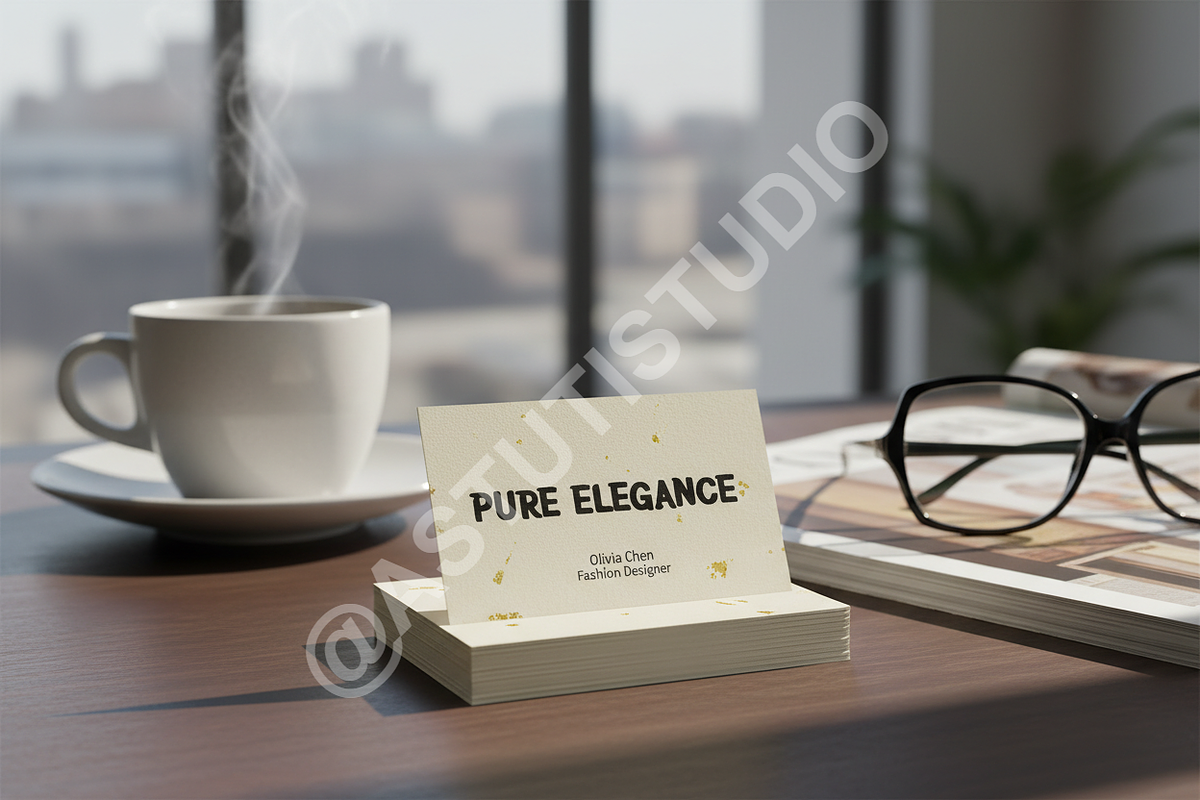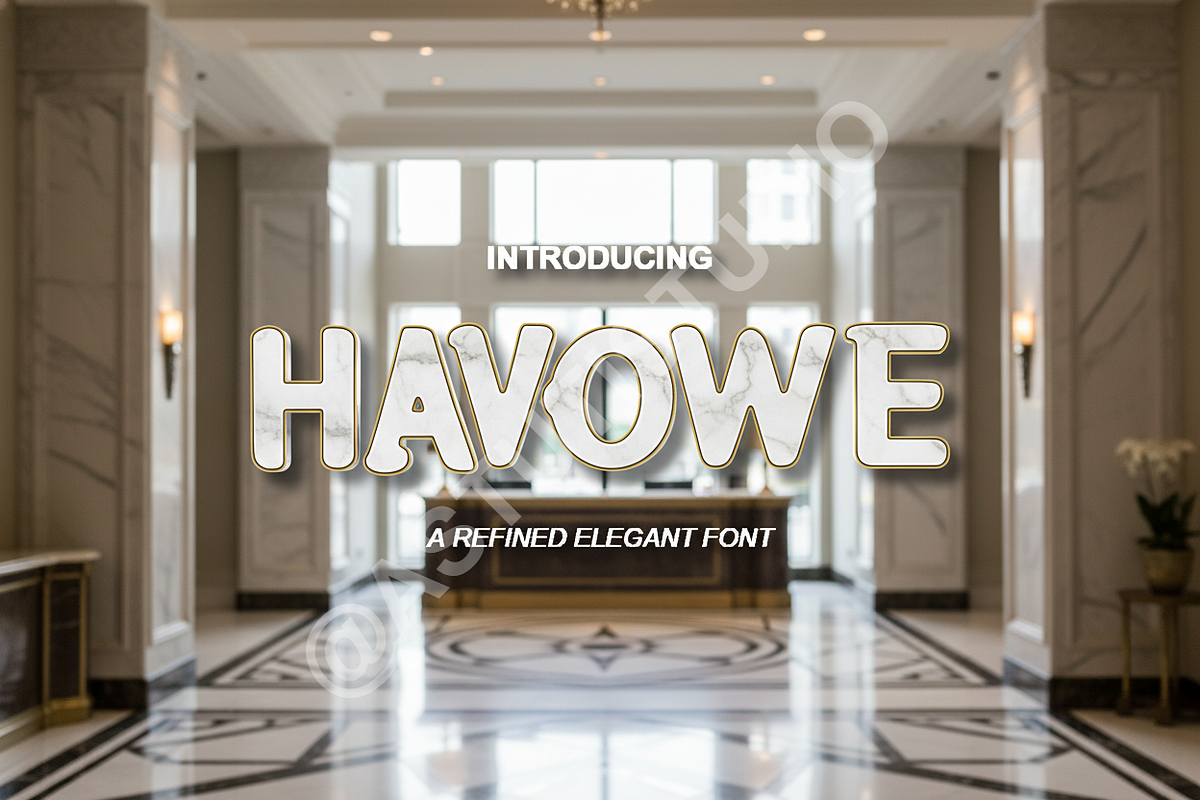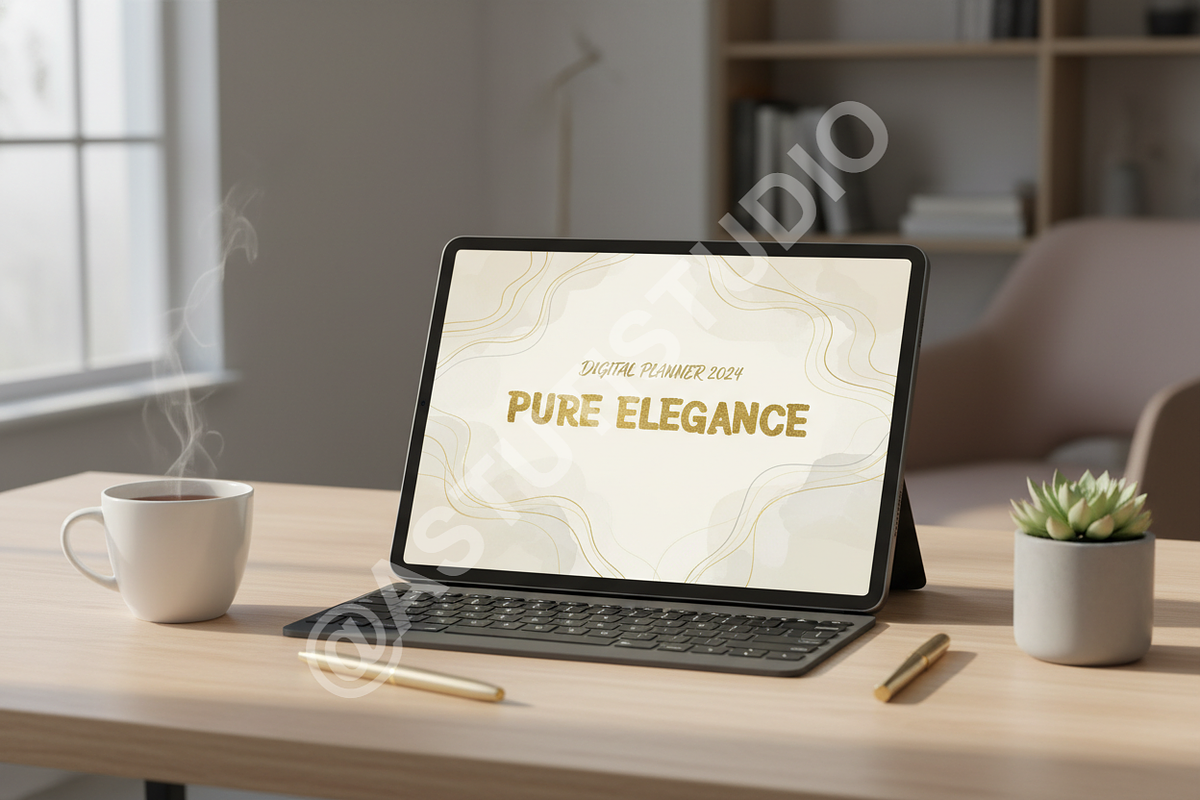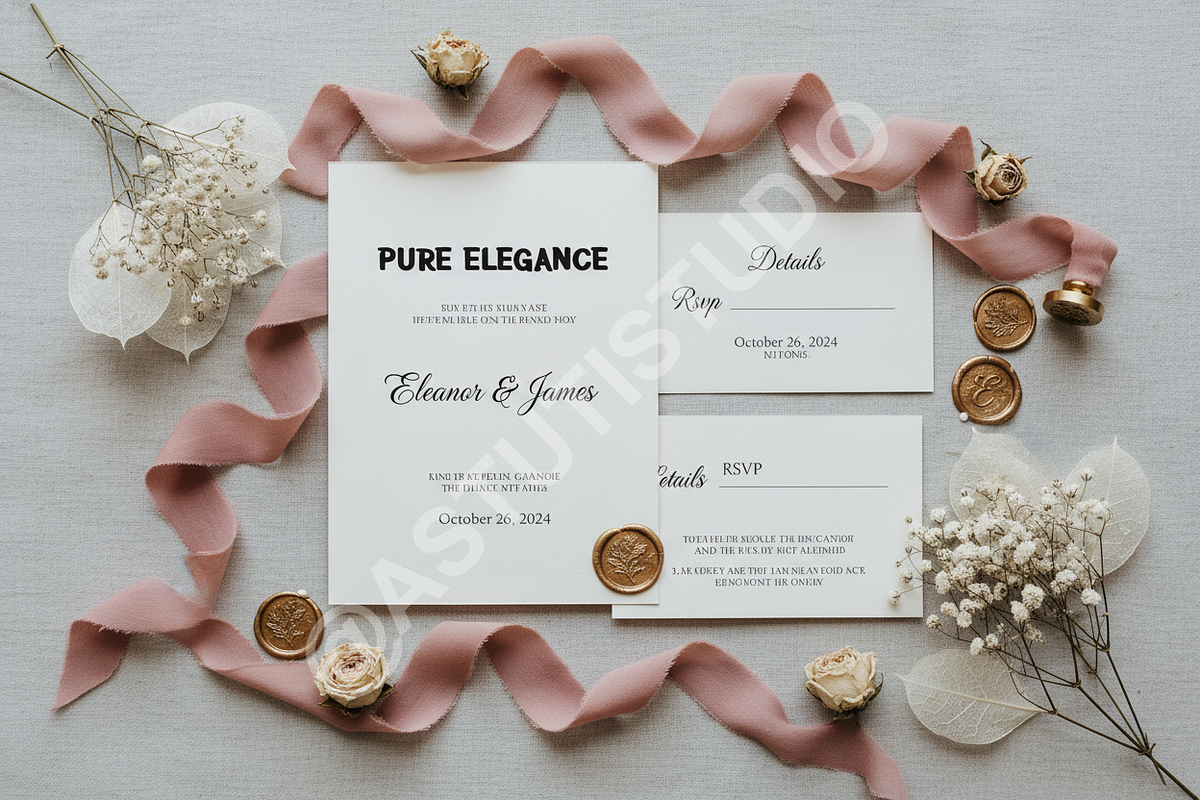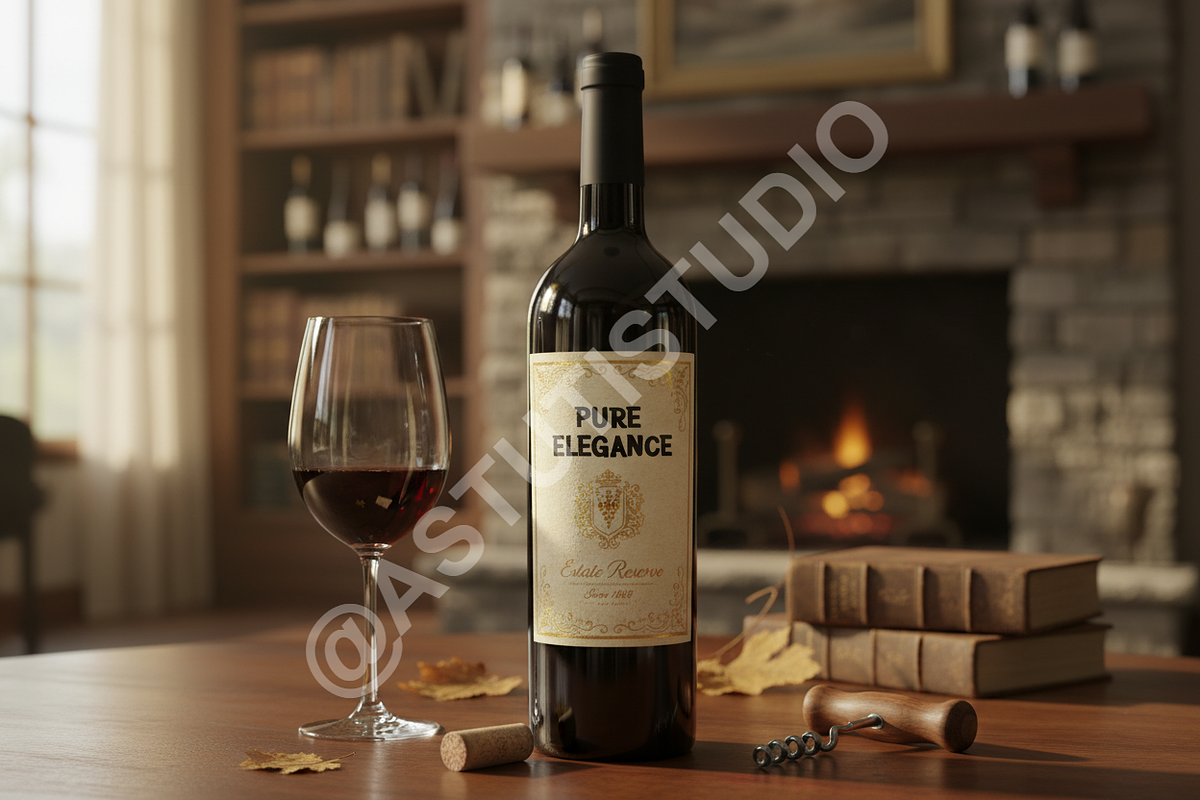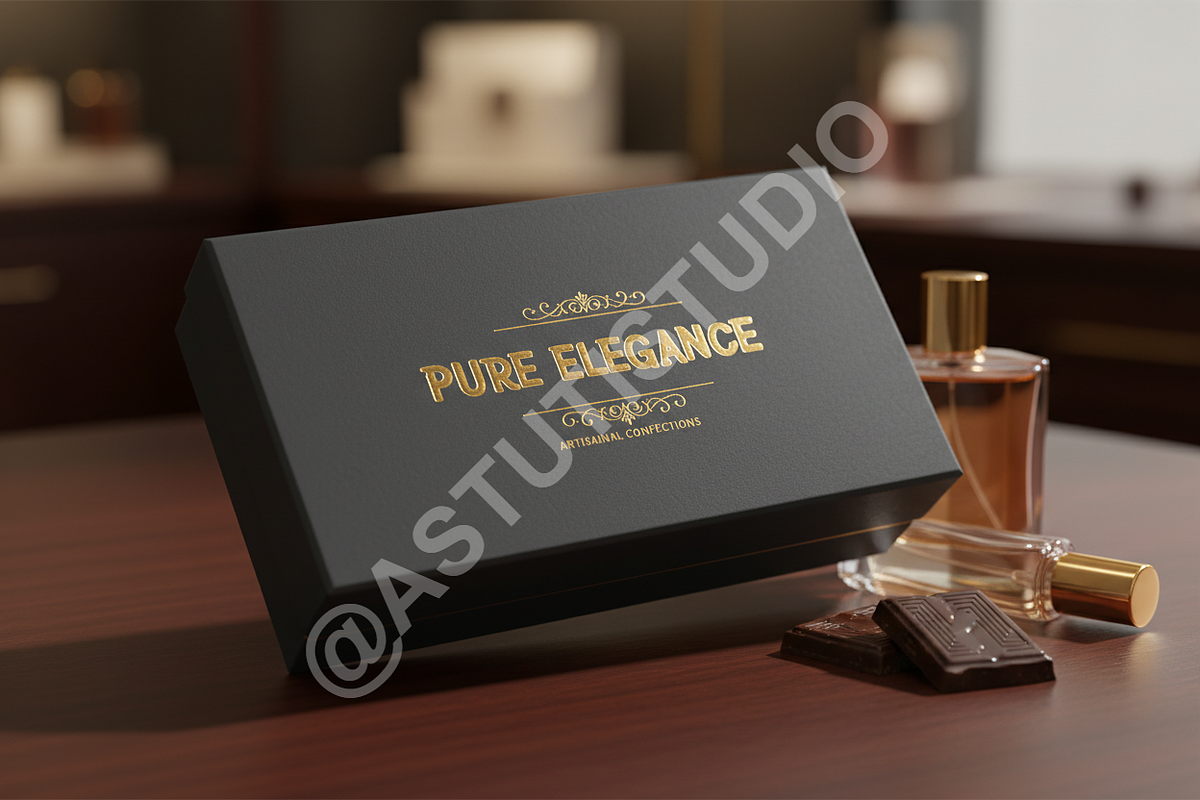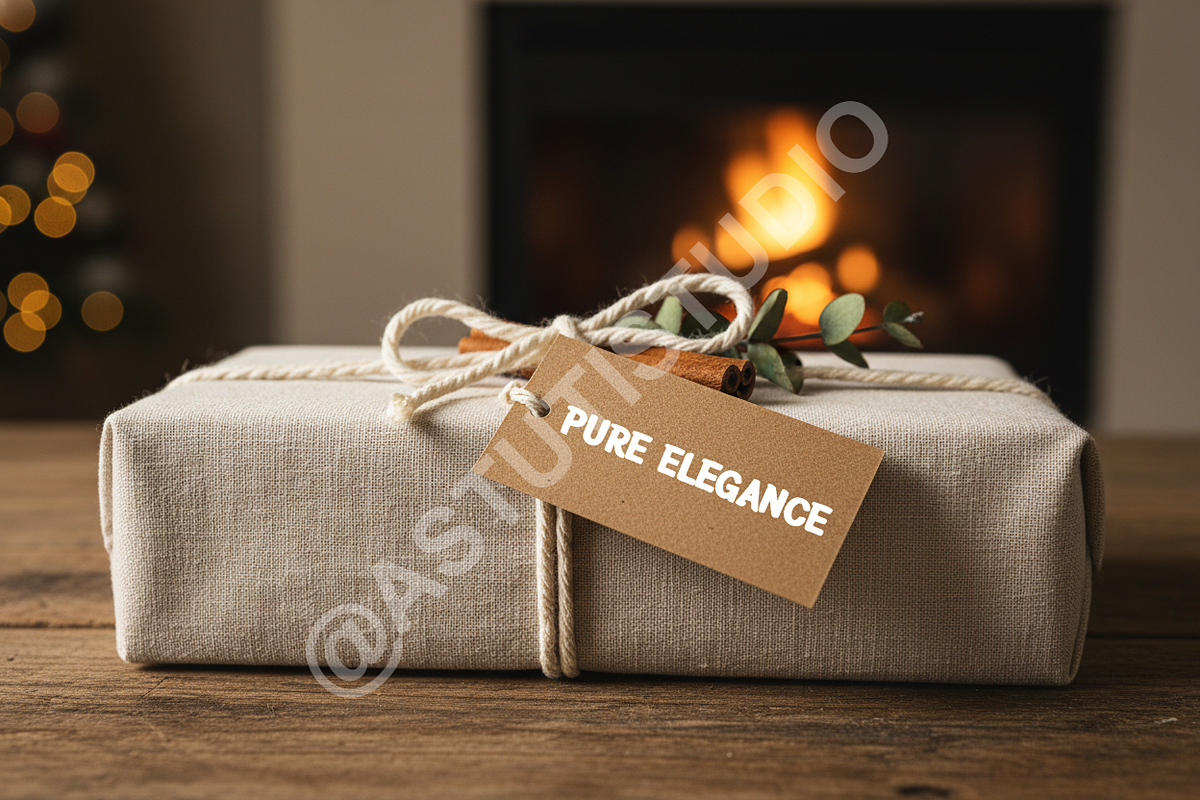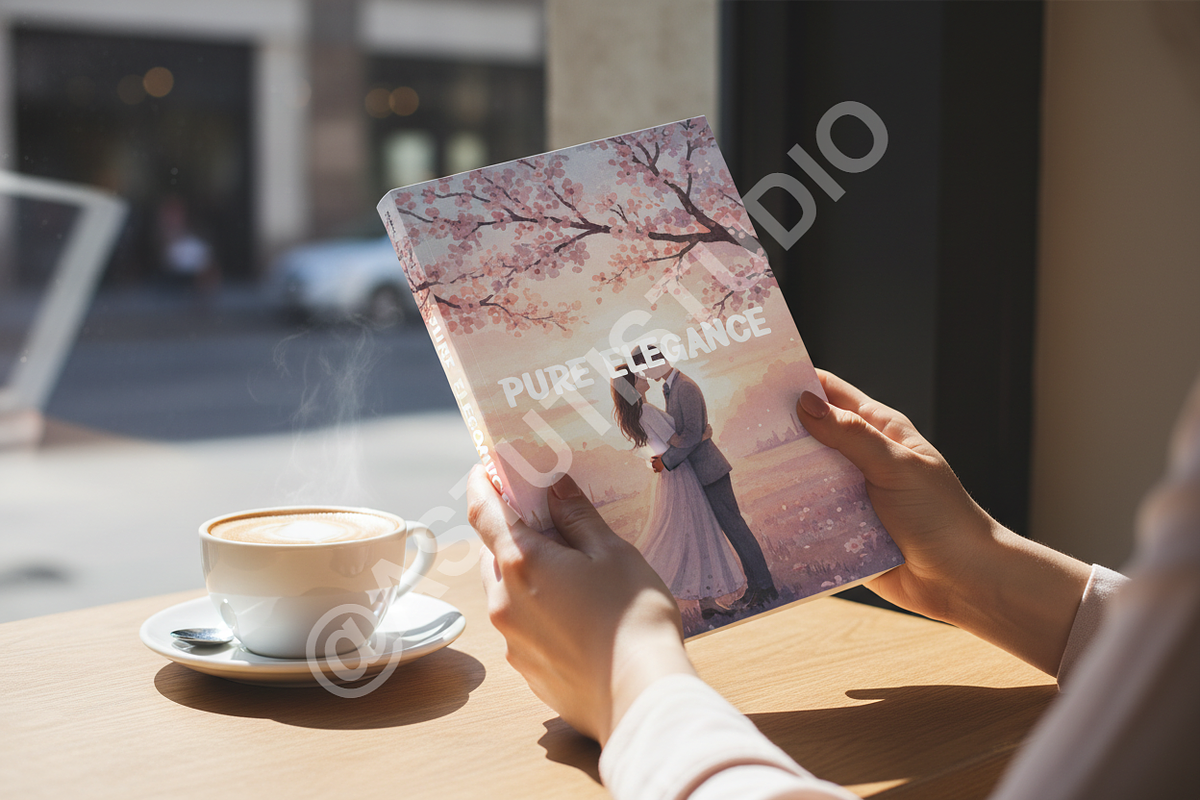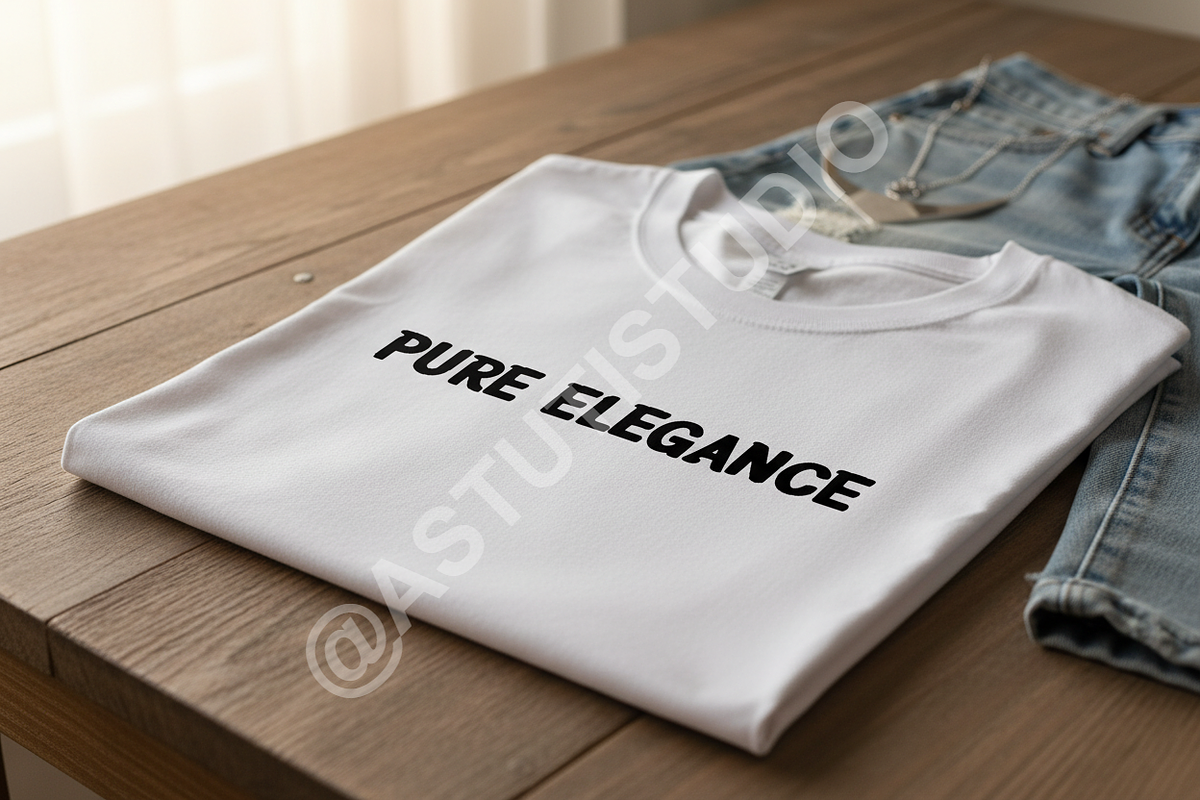
Havowe | Elegant Serif for Luxury Br
Havowe - A Timeless Minimalist Serif
Elevate your visual identity with Havowe, a premium serif typeface meticulously crafted for high-end aesthetics. Balancing classic sophistication with modern precision, Havowe is designed to provide your projects with an air of exclusivity and refinement. Whether you are crafting a luxury brand identity, designing a high-fashion editorial layout, or curating an elegant social media presence, this font offers the perfect blend of legibility and artistic flair.
- Clean, high-contrast serif characters
- Sophisticated ligatures and alternates for custom looks
- Perfectly balanced kerning for professional typography